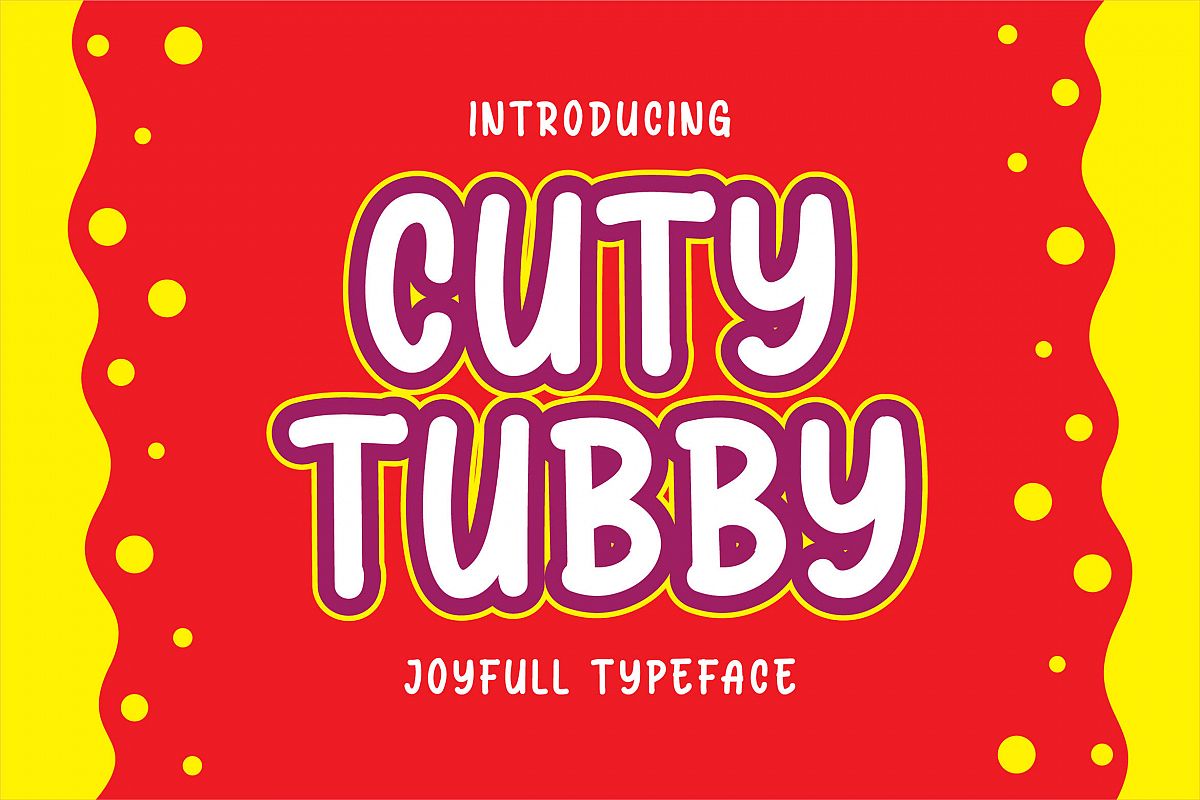
Introducing of our new product the name is Cuty Tubby Joyfull Typeface. Cuty Tubby is combine the sans serif style with a fun theme very good for food design, restaurant menu, kids poster, flyer, childrenbook, cartoon, comic etc